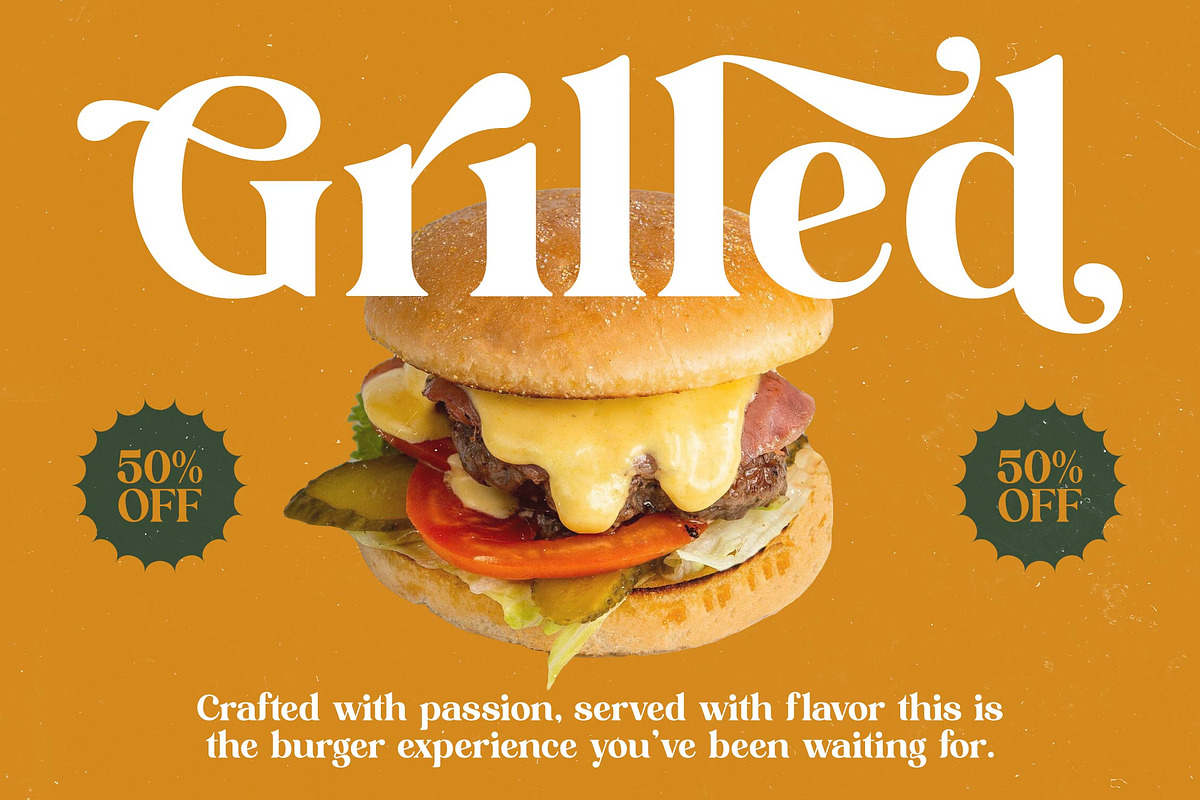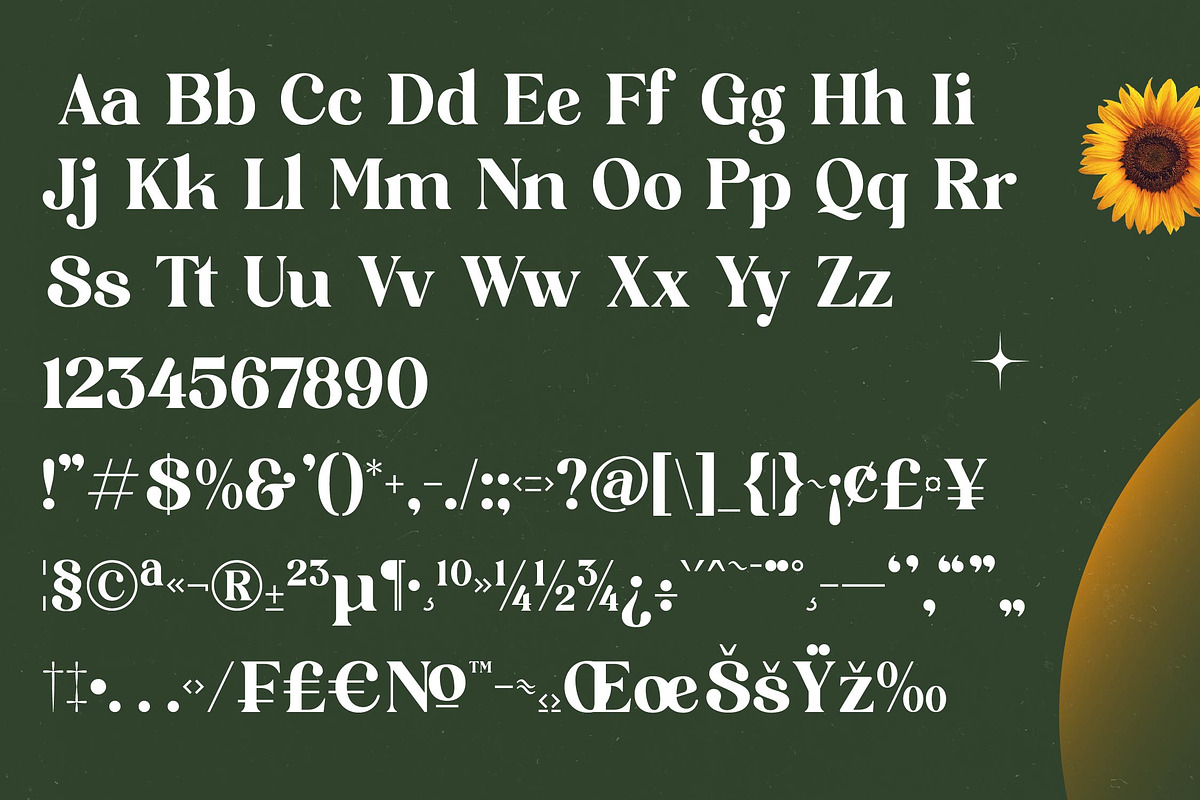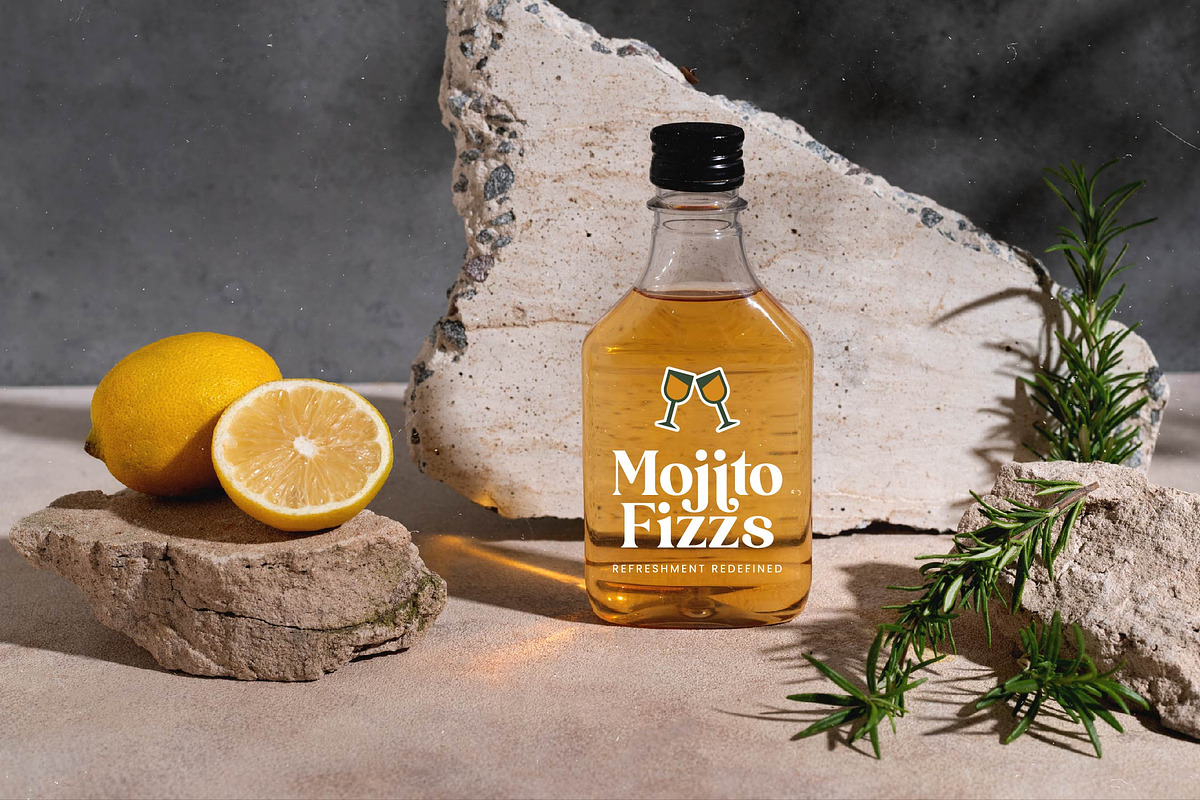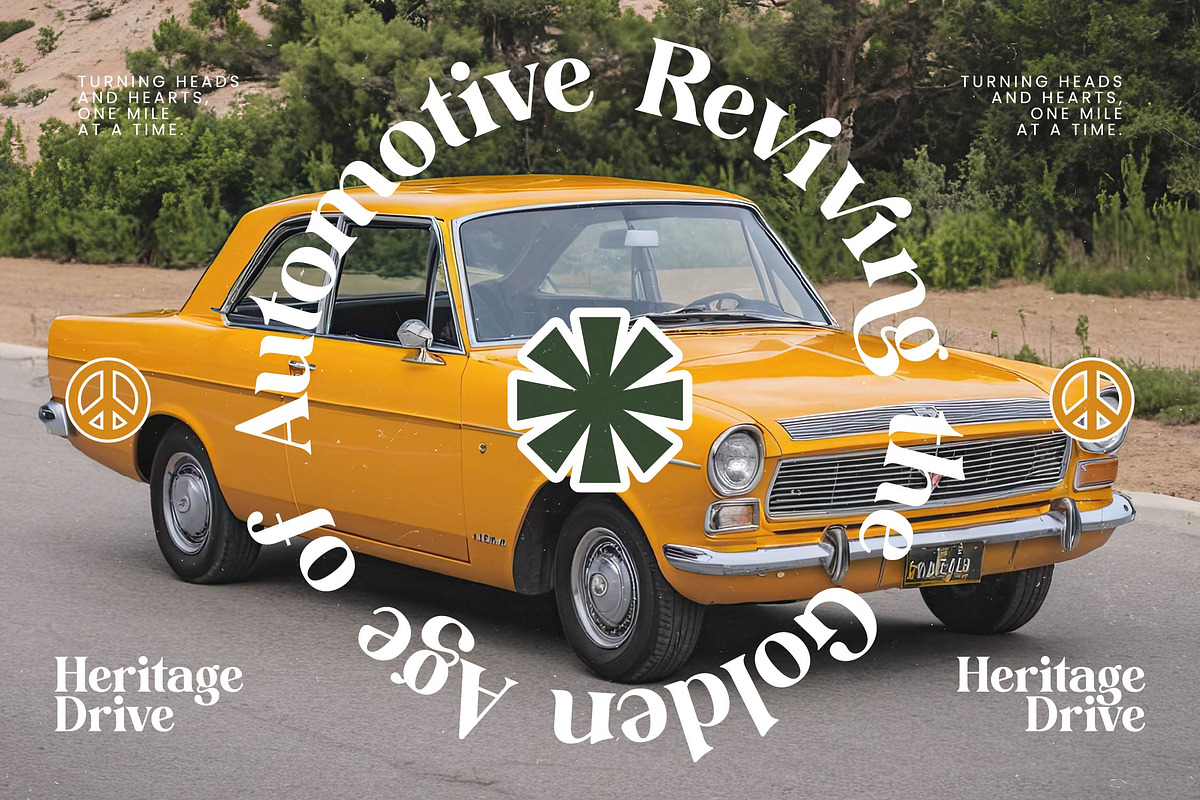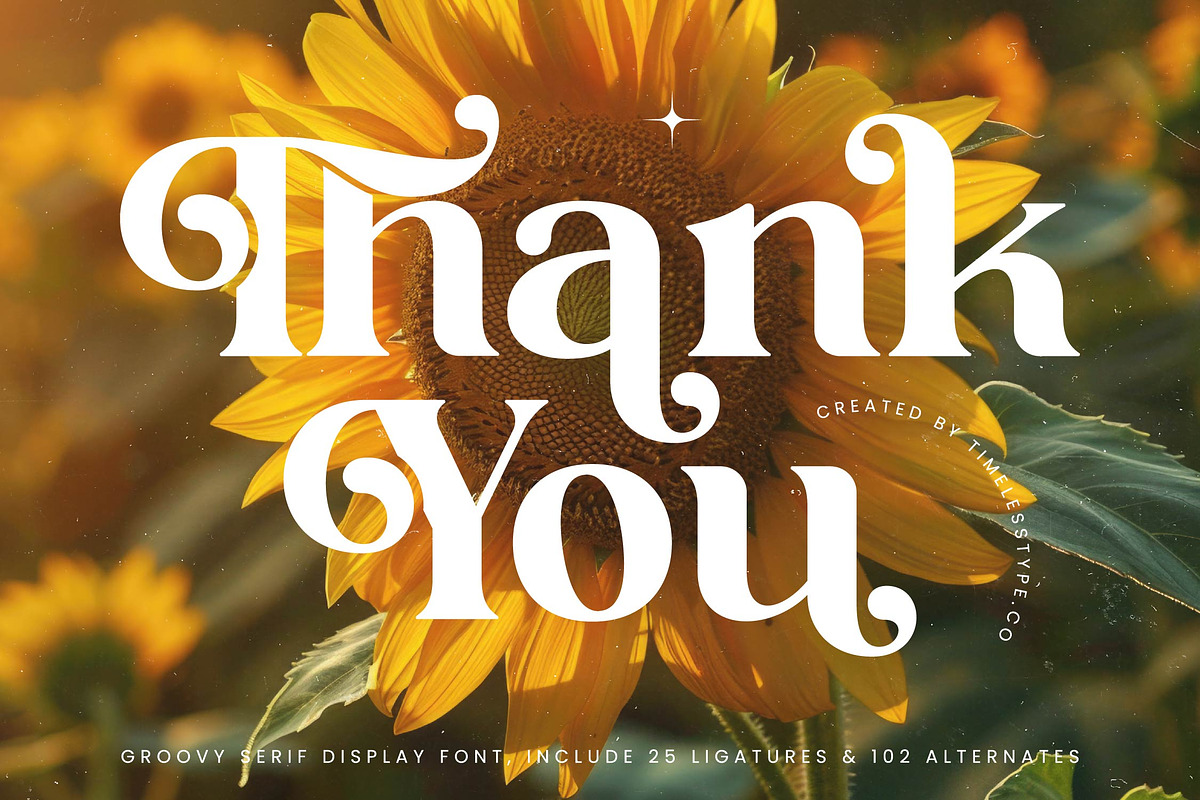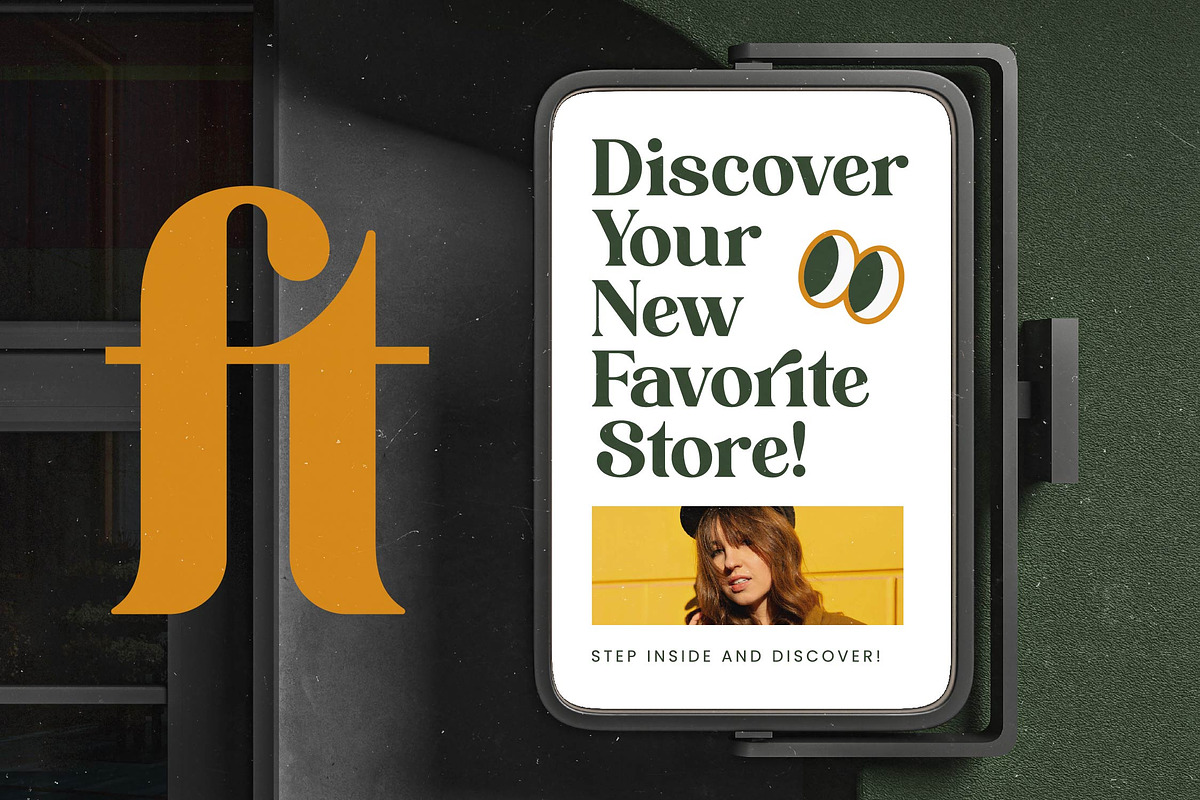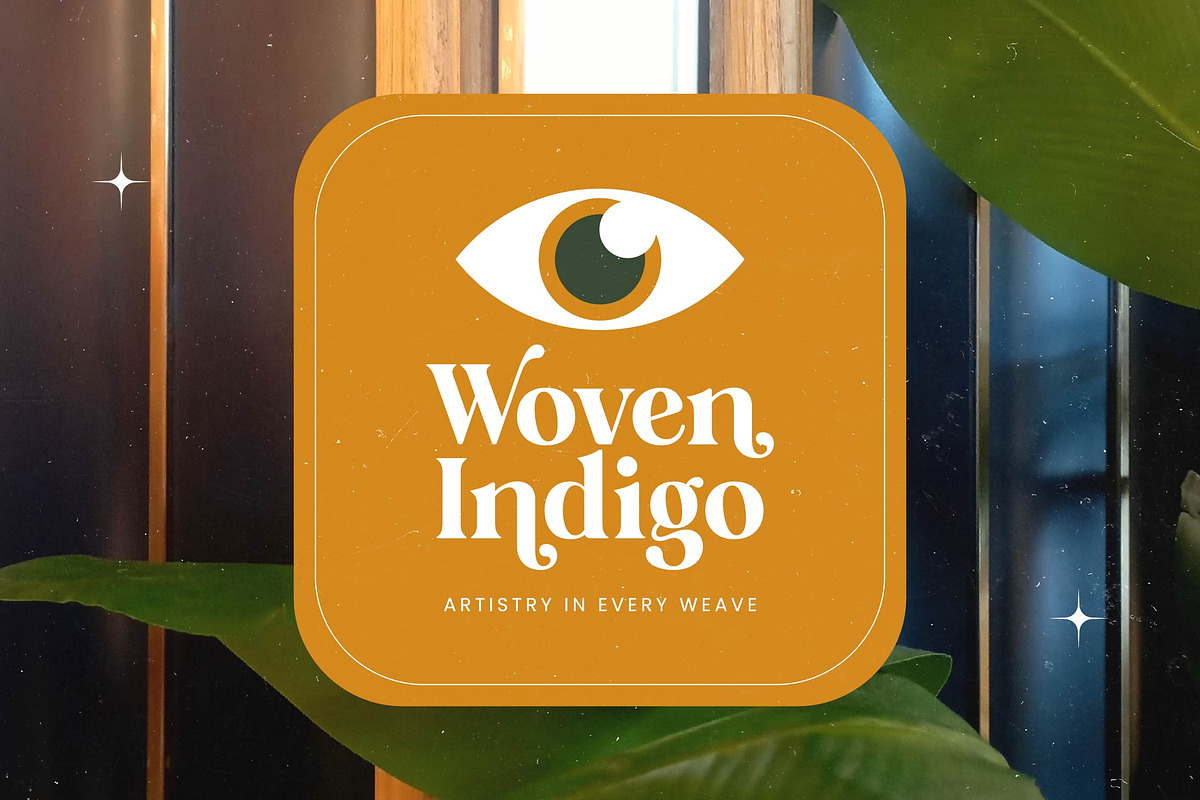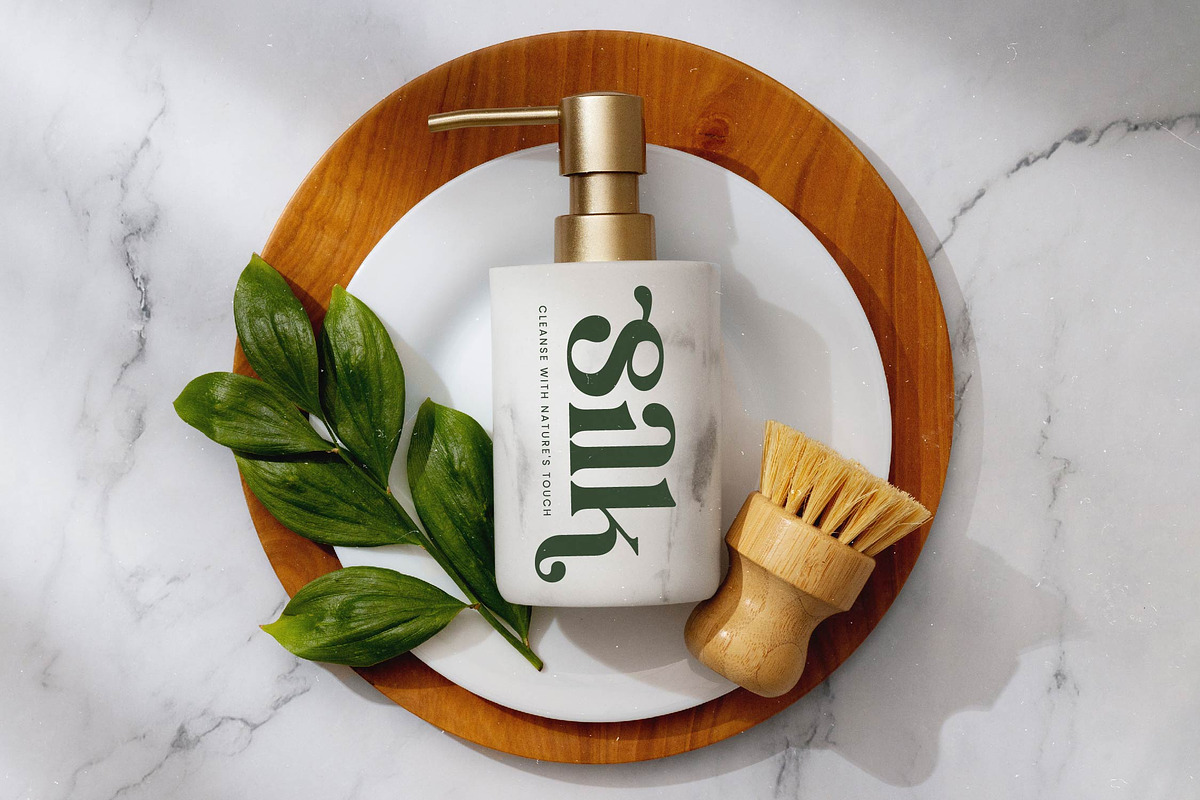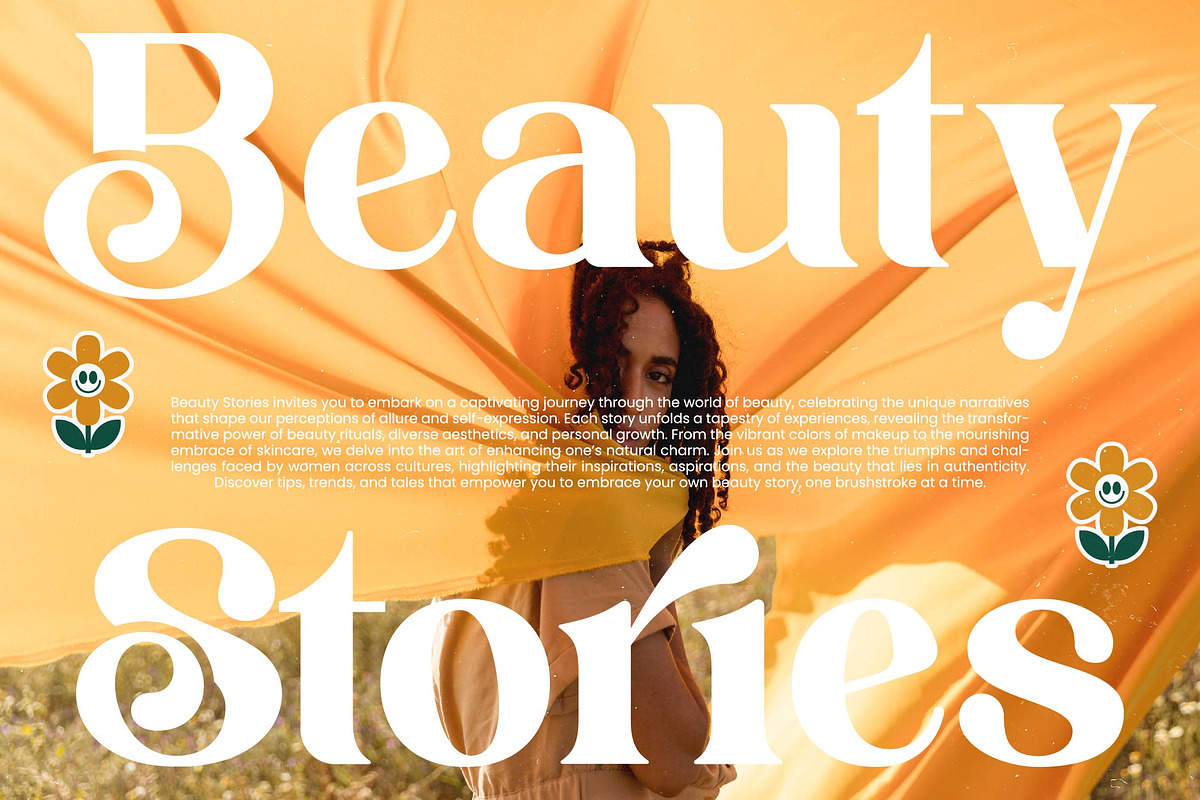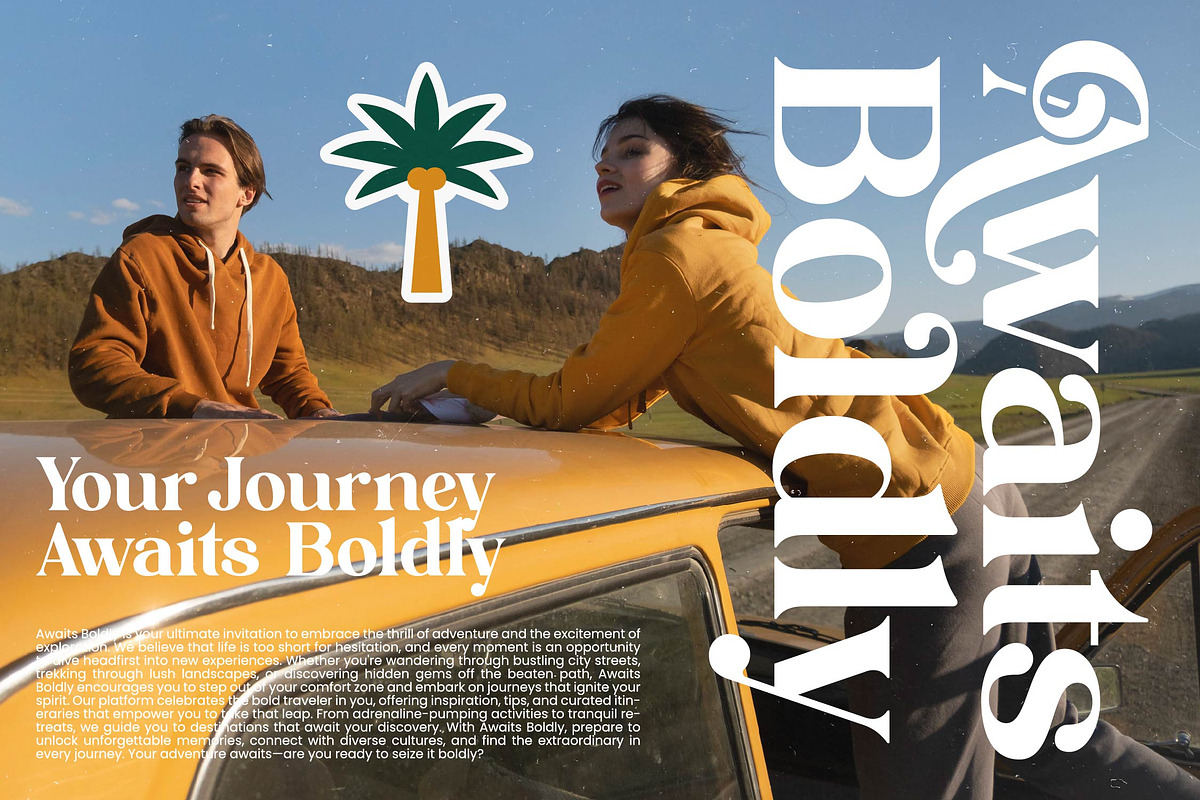
Shine Dailys Groovy Serif Font
Welcome a new era of warmth and sophistication with Shine Dailys, a typeface designed to capture the golden hour of creative expression. It brings a sun-drenched elegance to every canvas, ensuring your message glows with undeniable charm.
Inspired by the fluid movement of the 1970s and the organic beauty of blooming sunflowers, this font captures a nostalgic soul redefined for the contemporary era. Its curves mimic the soft sway of nature while maintaining a structured, professional presence that commands attention.
This modern serif display offers an unparalleled luxury typography experience, blending a high-contrast serif aesthetic with a playful, groovy spirit. Every glyph is crafted for maximum branding impact, making it an essential editorial font for those who refuse to settle for the ordinary.
Perfectly aligned with the current modern serif trend, this typeface is a masterclass in character-driven typography. It satisfies the growing demand for editorial display fonts that offer both versatility and a unique, hand-crafted personality that stands out in a crowded digital landscape.
From high-end logo design to cohesive brand identities, this font excels in packaging, editorial layouts, and sophisticated wedding invitations. Its versatile nature makes it a premier choice for fashion lookbooks and lifestyle magazines seeking a touch of retro-glamour.
Packed with creative potential, the set includes an extensive library of ligatures and alternates to customize your look, alongside decorative swashes. It is fully multilingual, supporting a vast range of international characters to ensure your global projects remain consistent and beautiful.
- Ligature 25 Alternate 102